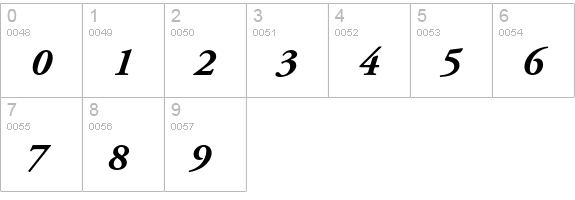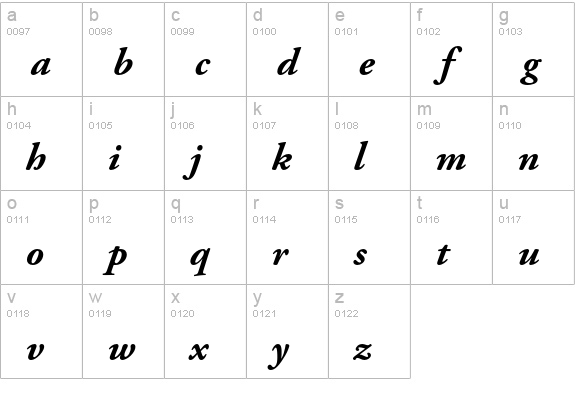
Adobe Garamond Pro Bold Italic is a strong, high-contrast, italic variant in the Adobe typeface family \xE2\x80\x94 well suited to headlines, attention-grabbing titles, and strong calls-to-action.
Adobe Garamond Pro Bold Italic is a bold and dynamic font that exudes elegance and sophistication. With its strong and slanted characters, this typeface commands attention and adds a touch of flair to any design project. The bold italic style of Adobe Garamond Pro is perfect for creating eye-catching headlines, titles, and emphasis within text. This font offers a perfect balance between traditional and modern design elements, making it versatile for a wide range of applications. Whether used in print or digital media, Adobe Garamond Pro Bold Italic conveys a sense of professionalism and style. Best of all, Adobe Garamond Pro Bold Italic is available for free download at FontsMarket.com. So, designers and creatives can easily access this premium font and incorporate it into their projects without any cost. Don't miss out on the opportunity to enhance your designs with the timeless beauty of Adobe Garamond Pro Bold Italic.